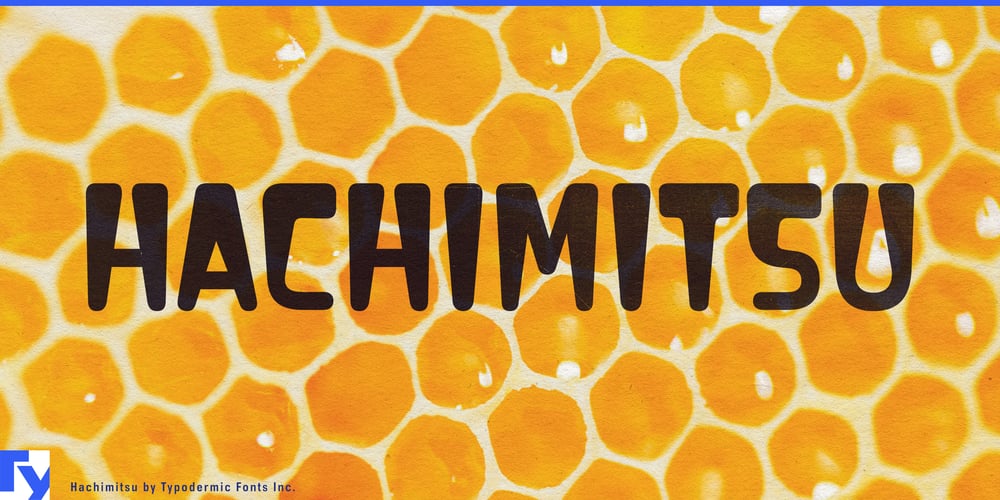
Hachimitsu Font Family was designed by Ray Larabie, Chikako Larabie and published by Typodermic. Hachimitsu contains 1 styles and family package options. In the vast cosmos of typography, a colossal entity has emerged from the primordial soup of design—Hachimitsu, a kaiju-inspired display font that towers over the landscape of conventional lettering. Born from the radioactive creativity of the Showa era, this typographic behemoth draws its immense power from the iconic signage of old Japan, now mutated into a form fit for interstellar conquest.Hachimitsu’s presence is nothing short of earth-shattering. Its top-heavy silhouette looms on the horizon of your designs, casting long shadows across the page like a monstrous creature emerging from the sea. The bold, thick strokes of each character are reminiscent of the massive footprints left behind by city-stomping giants, while its angular curves echo the sleek lines of flying saucers hovering ominously in the night sky. This is not merely a font; it’s a portal to an alternate dimension where the retro-futurism of 1960s sci-fi reigns supreme. Each glyph pulses with atomic energy, ready to unleash its typographic terror on unsuspecting viewers. Whether you’re crafting a poster for the latest creature feature, designing a comic book that pits heroes against cosmic horrors, or branding an intergalactic wrestling federation, Hachimitsu stands ready to do battle with boring typography.But don’t be fooled by its monstrous appearance—Hachimitsu comes in peace, bearing the gift of linguistic diversity. Like a benevolent alien race, it has learned to communicate in a multitude of Earth languages. From the fjords of Norway to the pampas of Argentina, Hachimitsu’s glyphs have adapted to most Latin-based European writing systems, ensuring your message can be understood across the globe—and perhaps beyond.Unleash Hachimitsu upon your design, and watch as it devours mundane text, spitting out messages that demand attention with the force of a radioactive roar. So strap in, earthlings—Hachimitsu is here to take your creations to dimensions unknown, one earth-shaking character at a time.